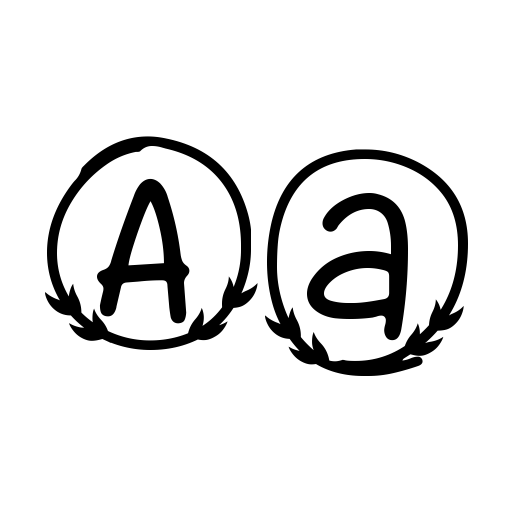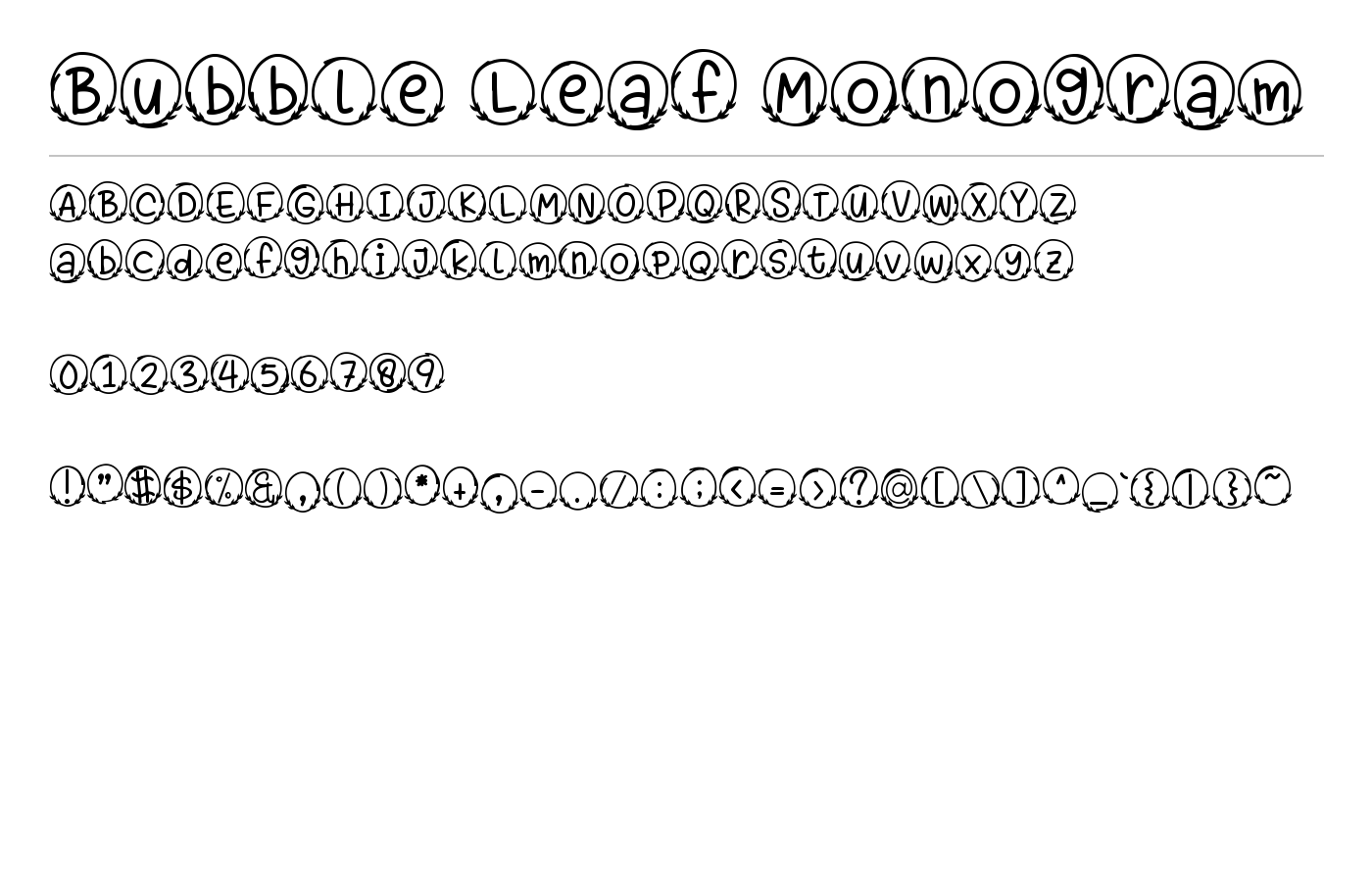
Bubble Leaf Monogram is a playful and whimsical sans serif font featuring rounded, bubble-like letterforms encased in circular outlines adorned with delicate leaf motifs. Its light weight and even stroke contrast give it a friendly, organic feel, making it perfect for creative branding, children’s products, or nature-inspired designs where a fun and approachable style is desired. This font works best in logos, decorative headlines, and playful packaging that benefits from its unique, lively character and natural charm.
Bubble Leaf Monogram Font
About Bubble Leaf Monogram Font
| Font family | Bubble Leaf Monogram Font |
| Designer | Dimas Prasetyo |